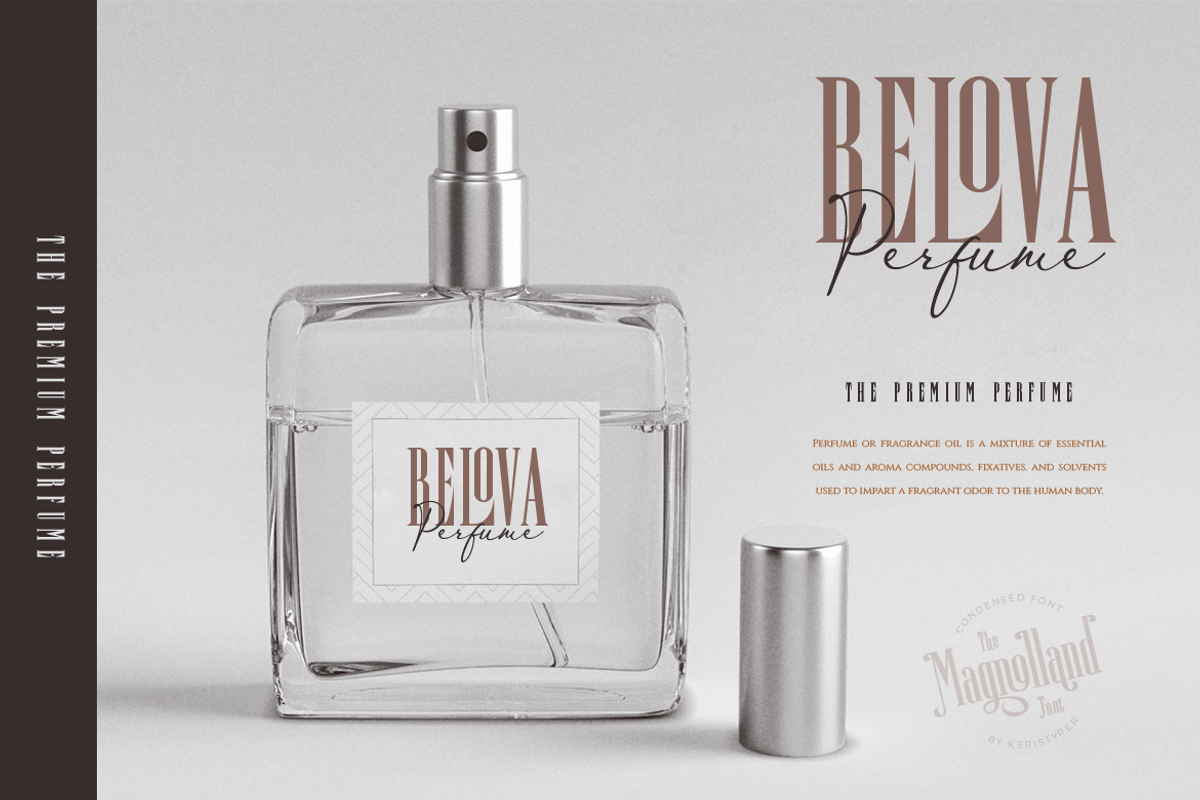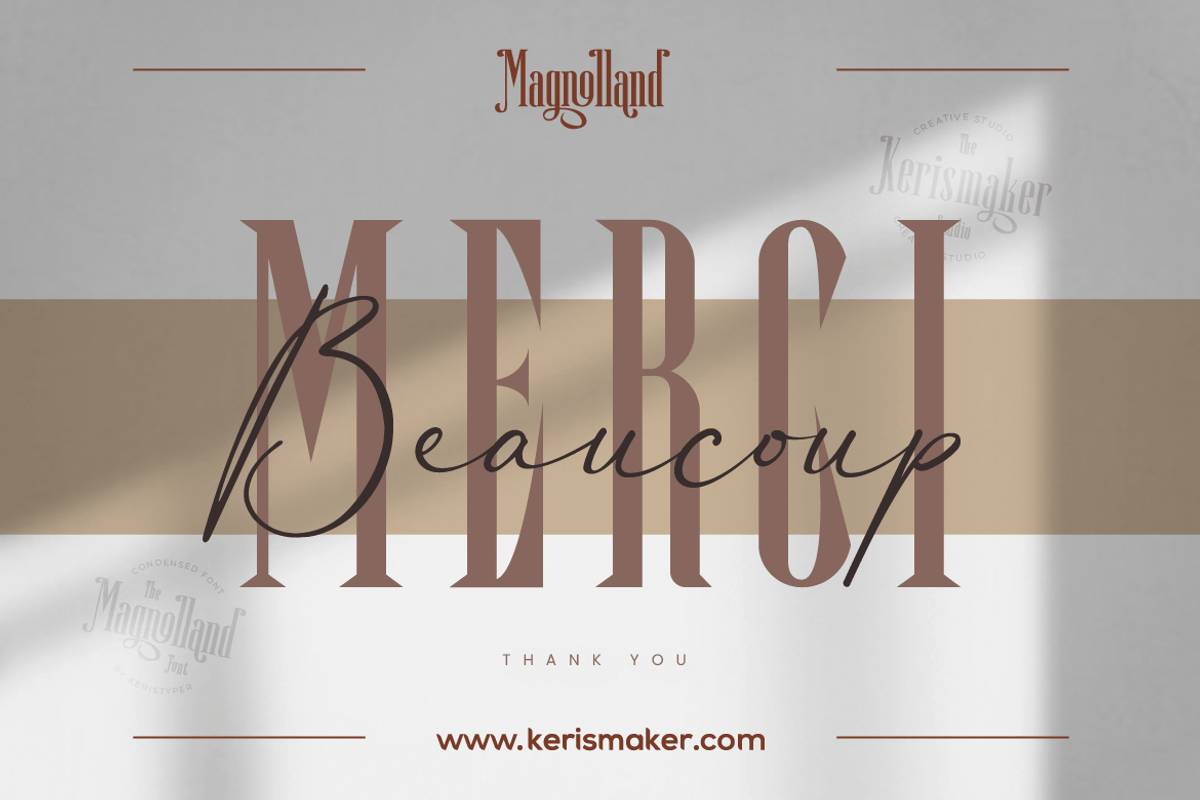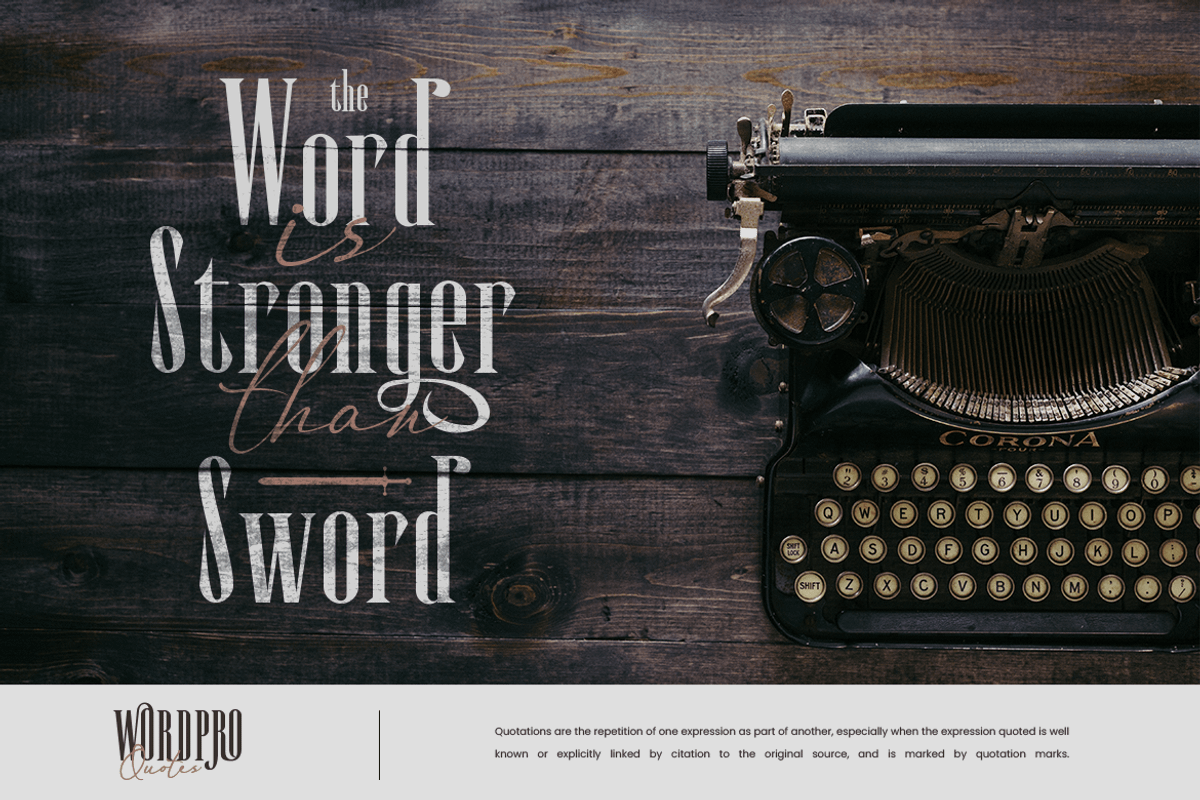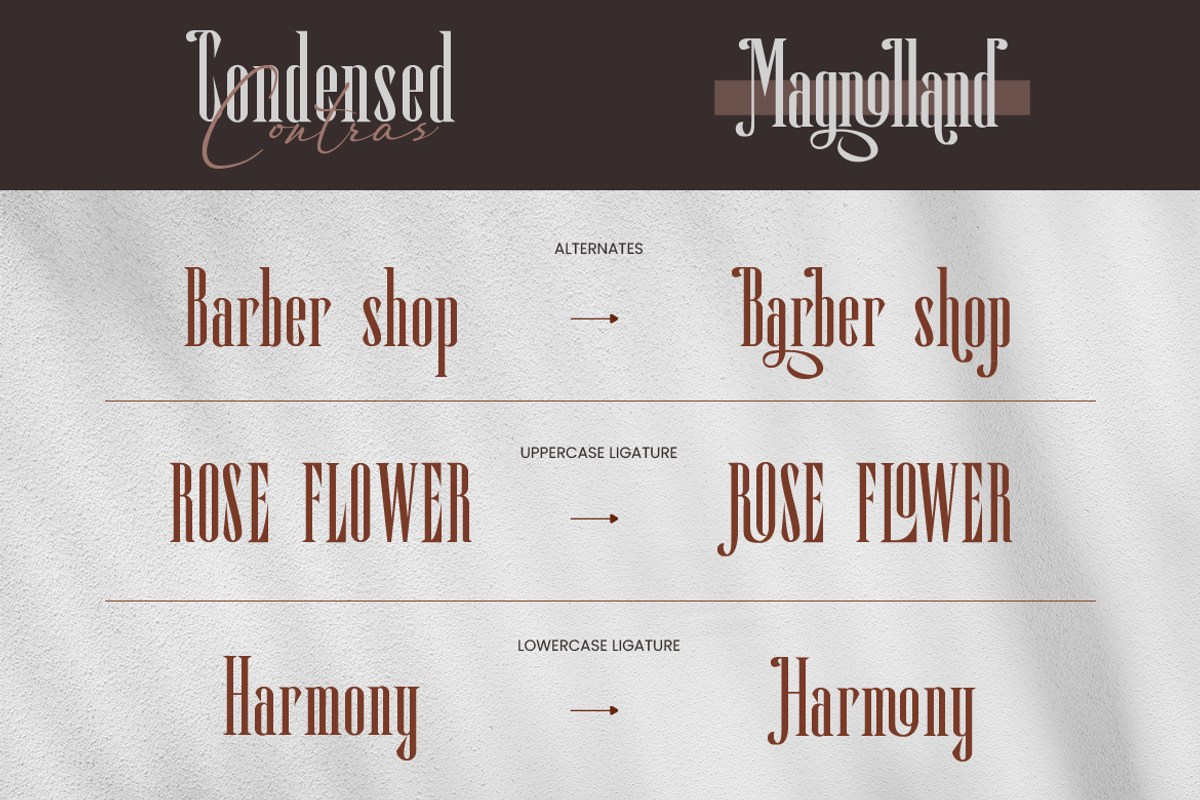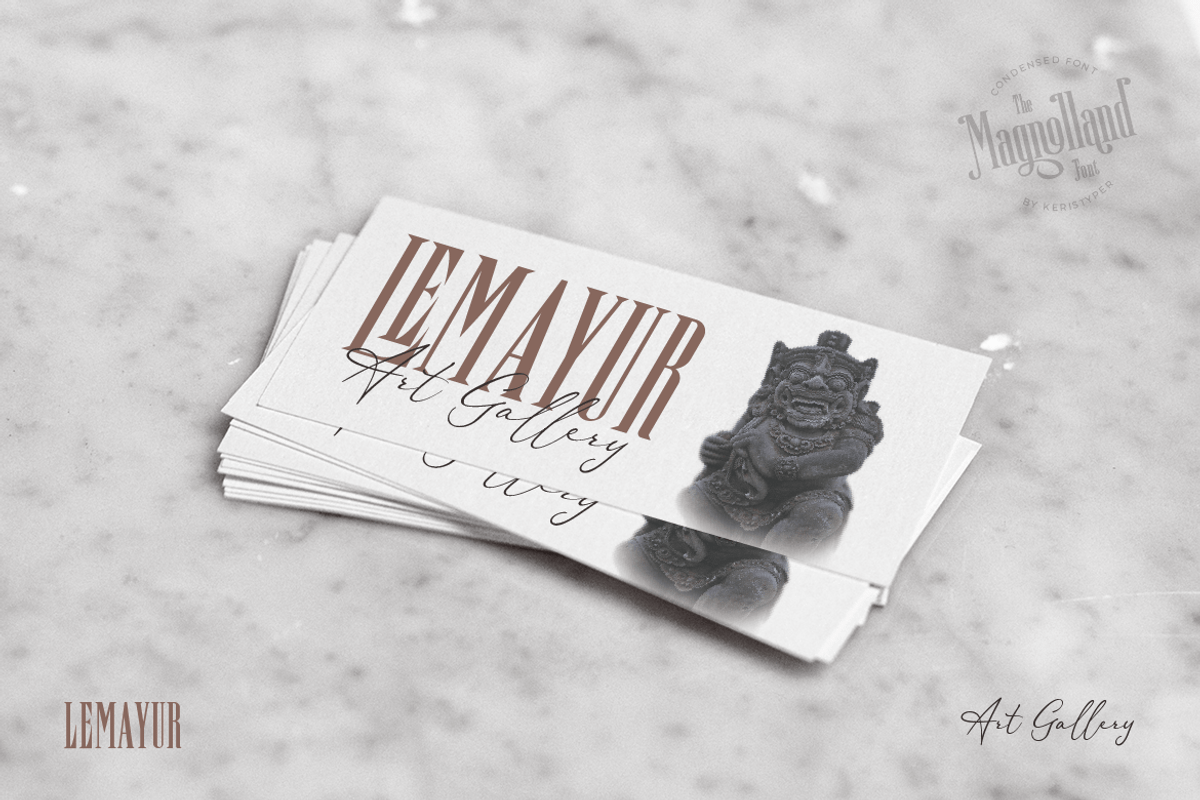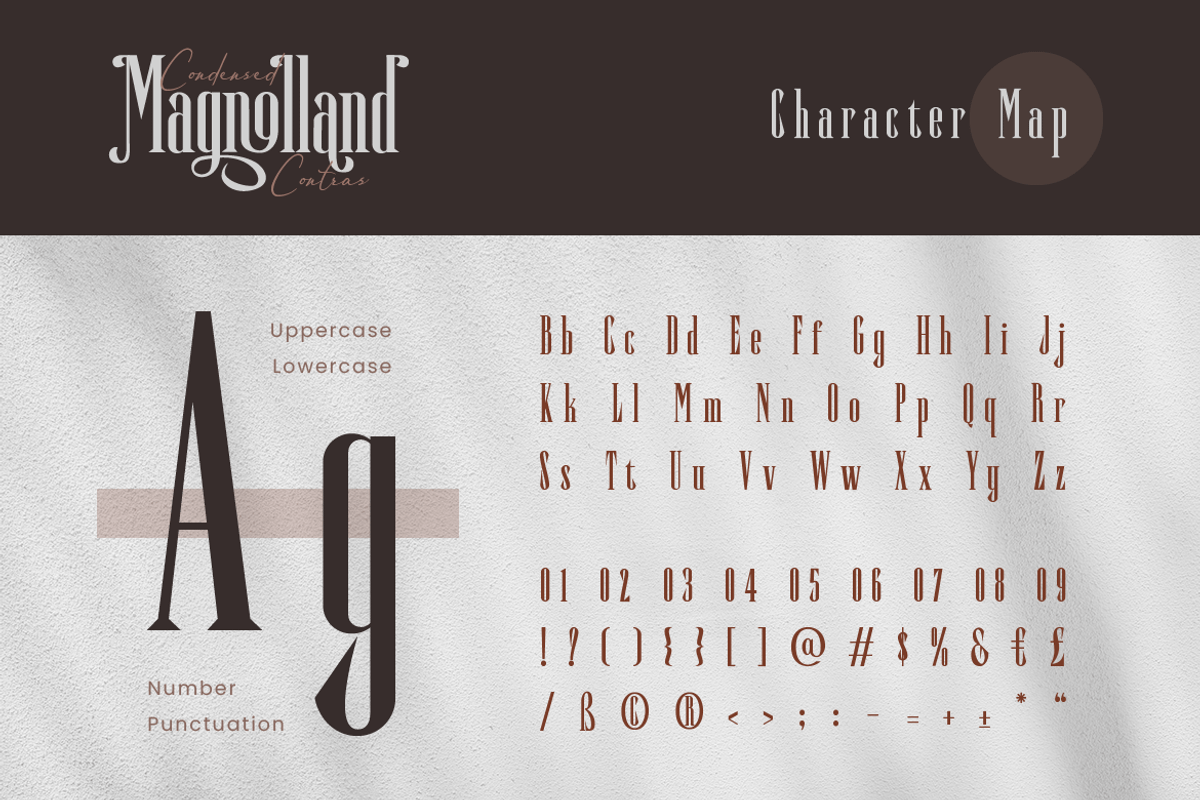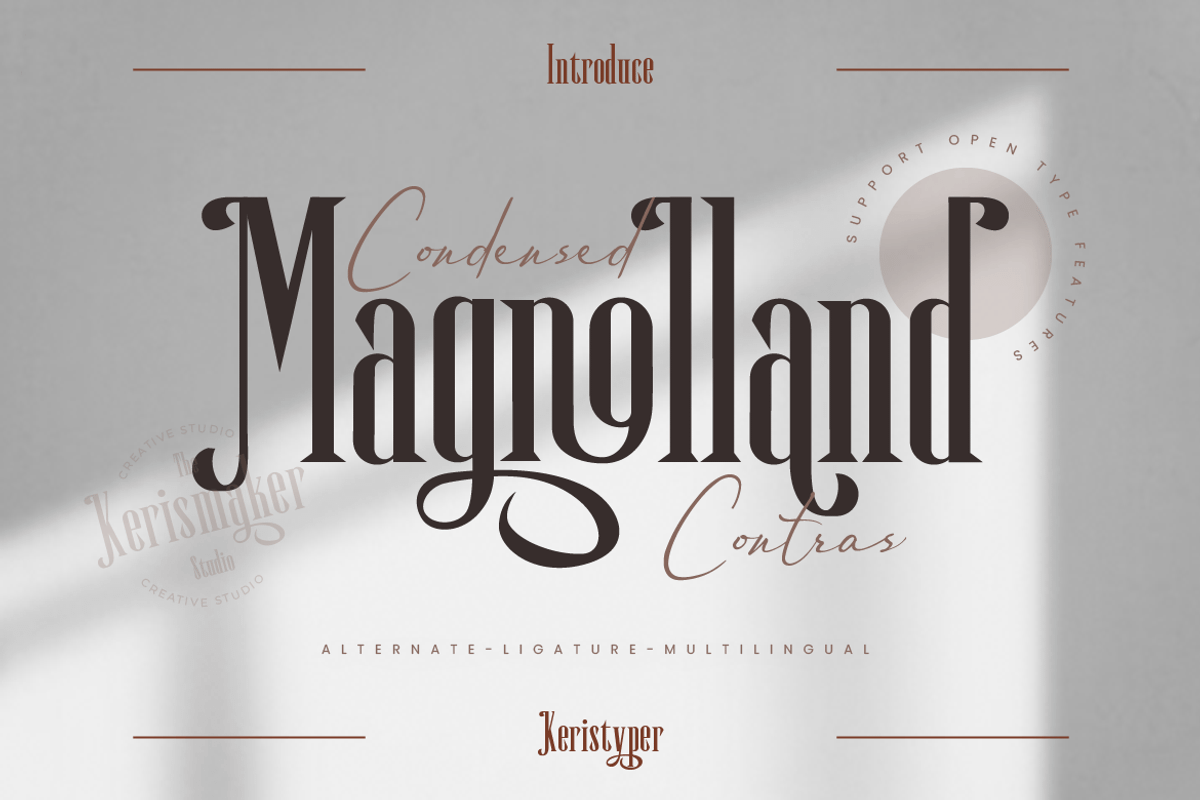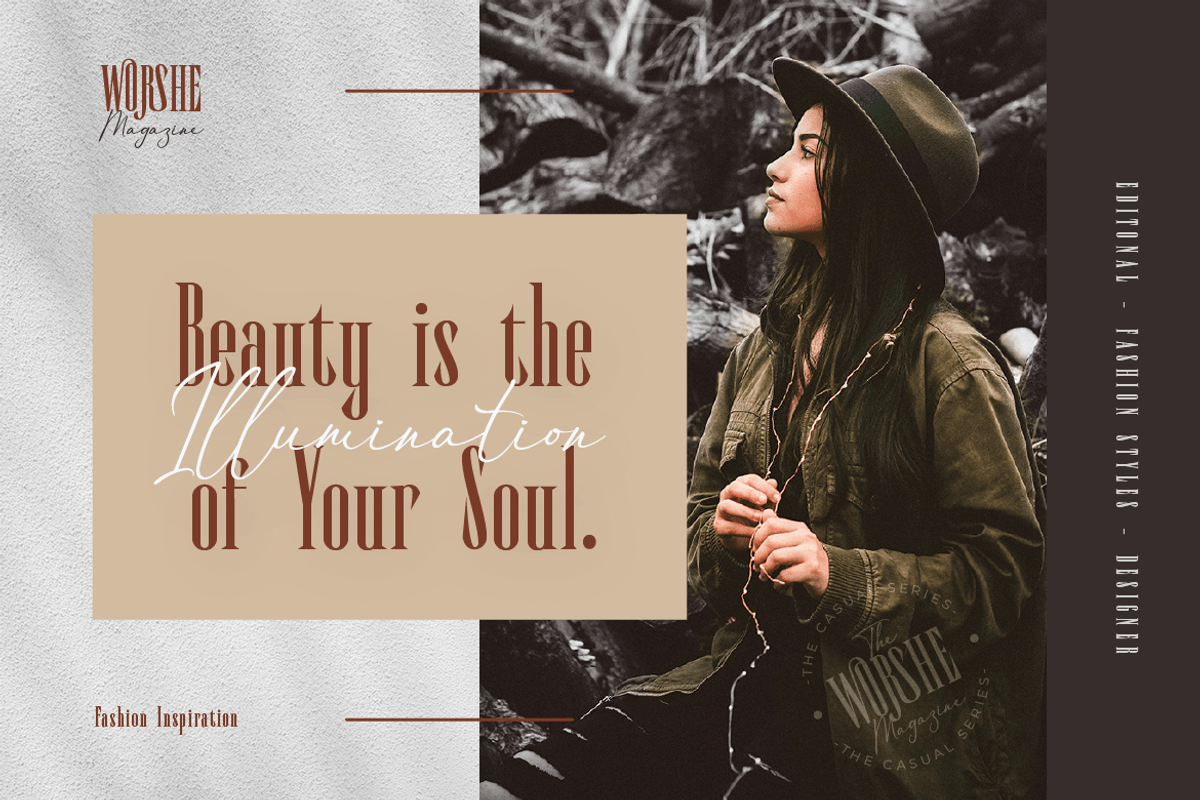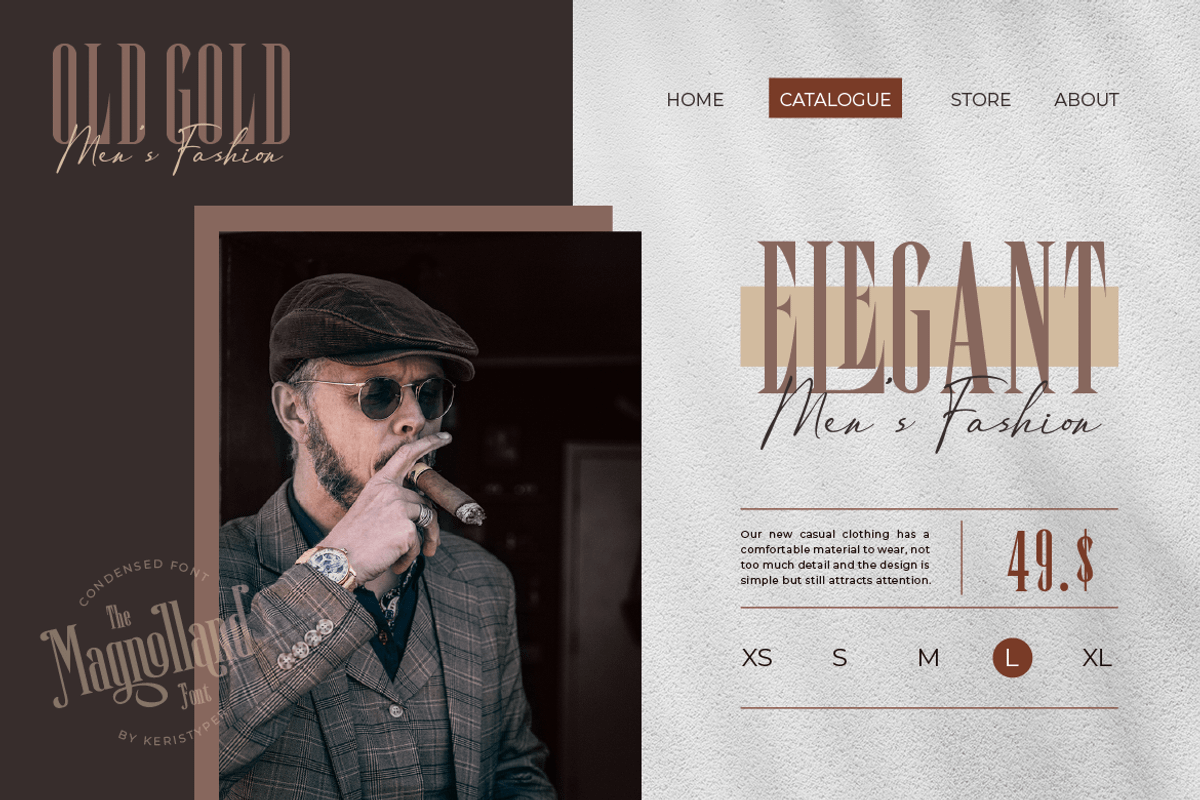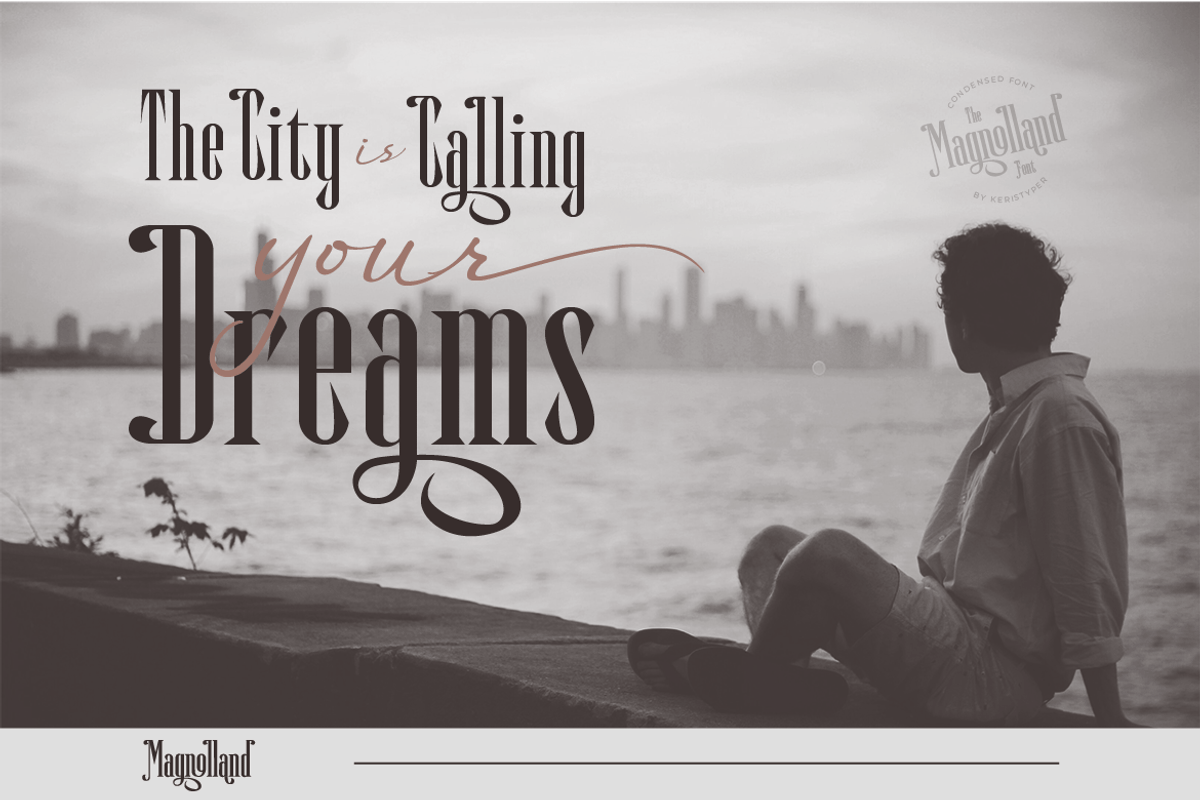
Magnolland
Magnolland is an elegantly condensed serif with an eye-catching shape for every typography combination design. This font is good for logo design, Social media, Movie Titles, Books Titles, short text even long text letters, and good for your secondary text font with the script, sans, or serif.
Featured:
- Standard Uppercase & Lowercase
- Multilingual : ä ö ü Ä Ö Ü ß ¿ ¡
- Alternate & Ligature